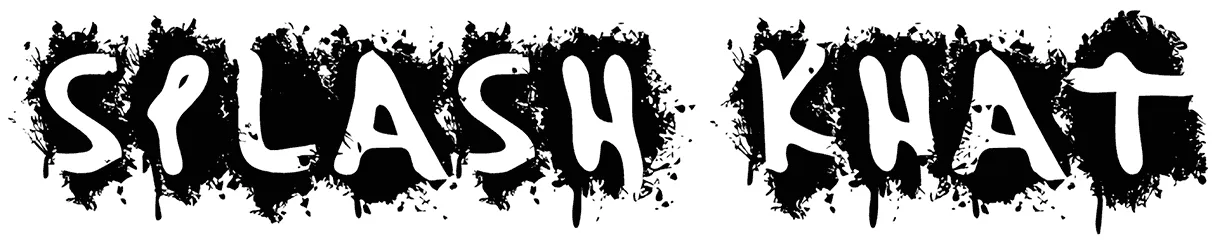
Splash Khat Font
Splash Khat is a script font that its characters have colored backgrounds, thus it can convey a sense of momentum, dynamic, grunge, and disorder to the audience. Although this does not support lowercase letters, it can increase the efficiency of content such as movie posters, digital banners, and stickers.